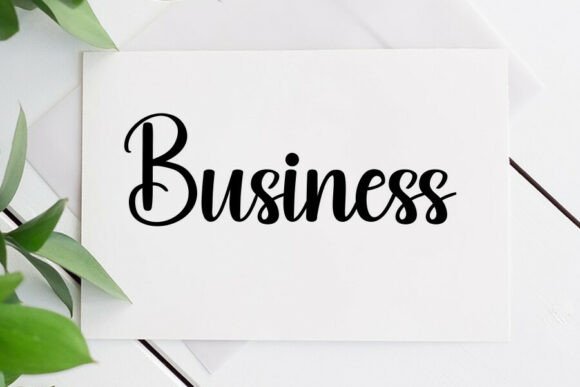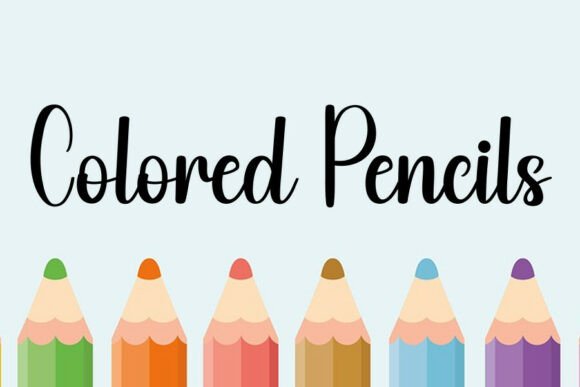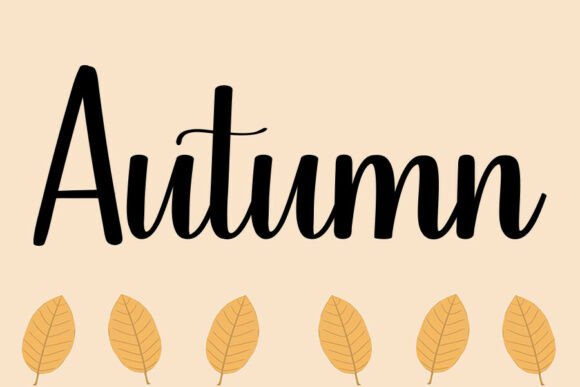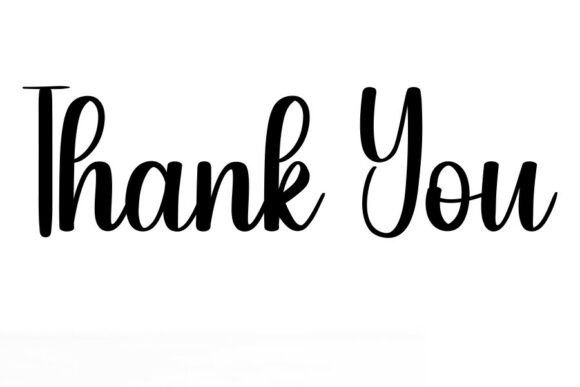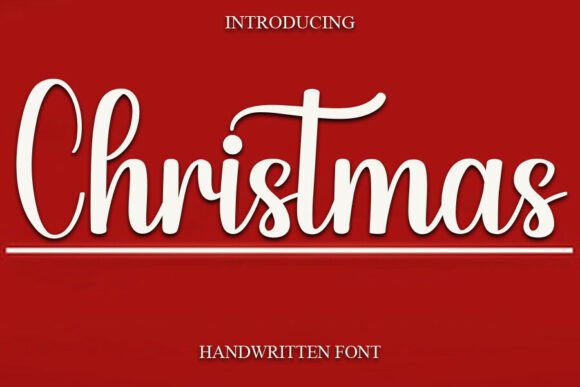
Introducing Christmas Font: The Sweet and Cursive Handwritten Font for Your Holiday Designs
Are you looking for a font that captures the essence of the holiday season? Do you want to add a touch of elegance and whimsy to your designs? Look no further than Christmas Font, a sweet and cursive handwritten font that’s perfect for a variety of design projects. In this article, we’ll explore the features and benefits of Christmas Font, and show you how to use it to create stunning designs that will leave a lasting impression.
What is Christmas Font?
Christmas Font is a beautiful, handwritten font that’s designed to evoke the feeling of joy and romance. Its gentle, cursive script is perfect for adding a touch of elegance to your designs, while its casual, approachable feel makes it suitable for a wide range of projects. Whether you’re designing a logo, a greeting card, or a marketing promotion, Christmas Font is the perfect choice.
Features of Christmas Font
So, what makes Christmas Font so special? Here are just a few of its key features:
- Sweet and cursive script: Christmas Font features a beautiful, handwritten script that’s perfect for adding a touch of elegance to your designs.
- Gentle and romantic feel: The font’s gentle, cursive feel makes it perfect for creating designs that are romantic, whimsical, and fun.
- Versatile: Christmas Font is suitable for a wide range of design projects, from logos and branding to greeting cards and marketing promotions.
- Elegant but casual: The font’s elegant script and casual feel make it perfect for designs that need to be both sophisticated and approachable.
Uses for Christmas Font
So, what can you use Christmas Font for? The possibilities are endless! Here are just a few ideas to get you started:
- Branding and logos: Use Christmas Font to create a beautiful, elegant logo that captures the essence of your brand.
- Wedding designs: The font’s romantic, whimsical feel makes it perfect for wedding designs, including invitations, programs, and decorations.
- Greeting cards: Use Christmas Font to create beautiful, heartfelt greeting cards for the holiday season.
- Fashion and lookbooks: The font’s elegant, sophisticated feel makes it perfect for fashion designs, including lookbooks and marketing promotions.
- Marketing promotions: Use Christmas Font to add a touch of elegance and whimsy to your marketing promotions, including flyers, brochures, and social media graphics.
Tips for Using Christmas Font
Here are a few tips for using Christmas Font in your designs:
- Use it sparingly: While Christmas Font is beautiful, it can be overwhelming if used too much. Use it sparingly to add a touch of elegance to your designs.
- Pair it with other fonts: Christmas Font pairs beautifully with other fonts, including sans-serif fonts and script fonts. Experiment with different pairings to find the one that works best for your design.
- Experiment with colors: Christmas Font looks beautiful in a variety of colors, from traditional holiday colors like red and green to more modern colors like gold and silver.
Christmas Font is a beautiful, sweet and cursive handwritten font that’s perfect for adding a touch of elegance and whimsy to your designs. With its gentle, romantic feel and versatile design, it’s suitable for a wide range of projects, from logos and branding to greeting cards and marketing promotions. Whether you’re a designer, crafter, or DIY enthusiast, Christmas Font is a must-have for your holiday designs.